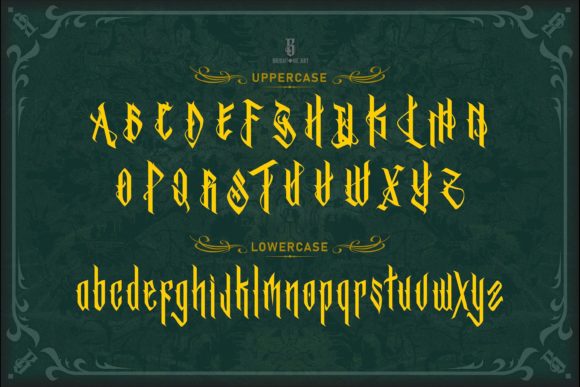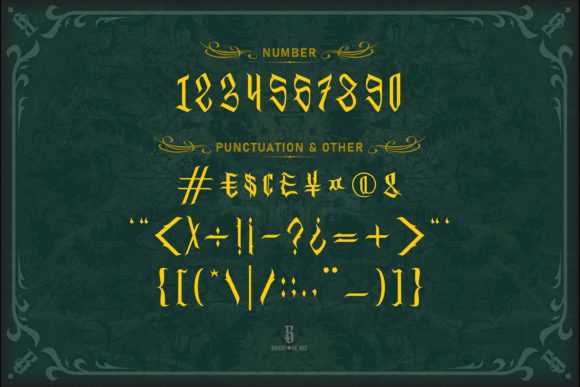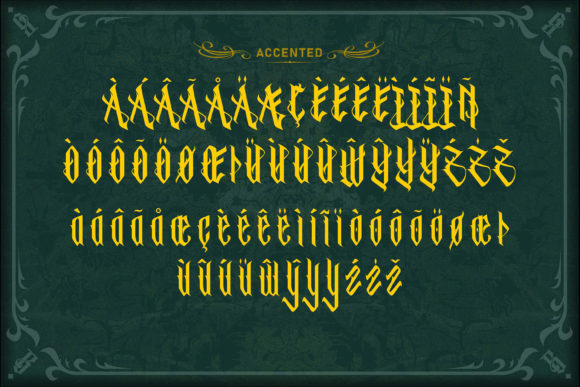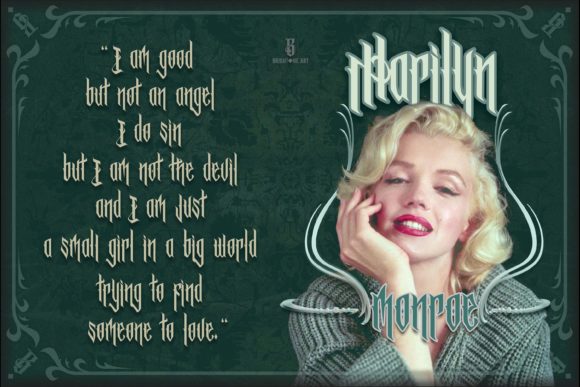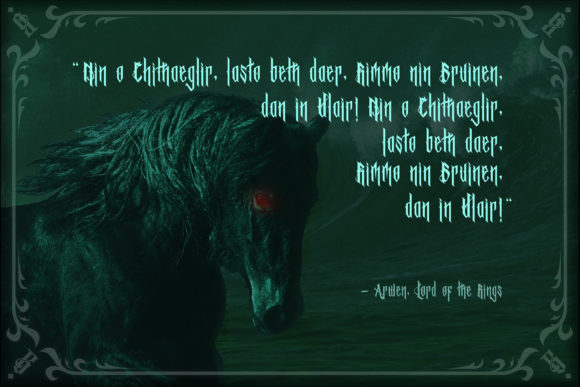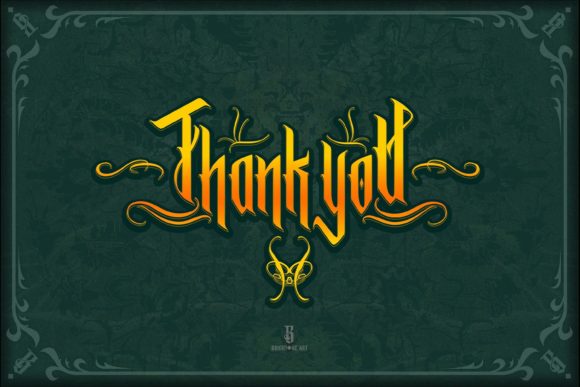
Bathory Font: Elevate Your Designs with a Bold and Authentic Blackletter Style
In the world of typography, fonts play a crucial role in conveying the tone and personality of a design. For designers and crafters looking to add a touch of elegance and sophistication to their work, the Bathory font is an excellent choice. This bold and authentic blackletter font is sure to make your designs stand out and leave a lasting impression.
What is Bathory Font?
Bathory is a blackletter font that exudes confidence and assertiveness. Its distinct and bold style makes it perfect for formal designs where you want to make a statement. The font’s authentic look and feel are reminiscent of traditional blackletter typography, with intricate details and ornate flourishes that add to its unique charm.
Key Features of Bathory Font
- Bold and Assertive: The Bathory font is designed to make a statement. Its bold and assertive style ensures that your designs grab attention and leave a lasting impression.
- Authentic Blackletter Style: The font’s authentic blackletter style gives it a unique and distinctive look that’s perfect for formal designs.
- Intricate Details: The Bathory font features intricate details and ornate flourishes that add to its elegance and sophistication.
- Versatile: The font is versatile and can be used for a variety of design projects, from logos and branding to packaging and advertising.
How to Use Bathory Font in Your Designs
Adding the Bathory font to your designs is easy. Here are a few tips to get you started:
- Pair it with a Simple Font: Pair the Bathory font with a simple font to create contrast and make your design stand out.
- Use it for Headings: The Bathory font is perfect for headings and titles. Use it to add a touch of elegance and sophistication to your design.
- Experiment with Colors: The Bathory font looks great in a variety of colors. Experiment with different colors to find the one that works best for your design.
Benefits of Using Bathory Font
There are several benefits to using the Bathory font in your designs. Here are a few:
- Unique and Distinctive: The Bathory font is unique and distinctive, making it perfect for designers who want to stand out from the crowd.
- Elegant and Sophisticated: The font’s elegant and sophisticated style makes it perfect for formal designs where you want to make a good impression.
- Time-Saving: The Bathory font is easy to use and saves you time. You don’t have to spend hours designing a custom font or searching for the perfect one.
Who Can Benefit from Using Bathory Font?
The Bathory font is perfect for a variety of designers and crafters, including:
- Graphic Designers: Graphic designers can use the Bathory font to add a touch of elegance and sophistication to their designs.
- Log designers: Log designers can use the Bathory font to create unique and distinctive logos that stand out.
- Crafters: Crafters can use the Bathory font to add a touch of elegance and sophistication to their craft projects.
In conclusion, the Bathory font is a bold and authentic blackletter font that’s perfect for designers and crafters looking to add a touch of elegance and sophistication to their work. Its unique and distinctive style makes it stand out from other fonts, and its versatility ensures that it can be used for a variety of design projects. Whether you’re a graphic designer, log designer, or crafter, the Bathory font is an excellent choice.